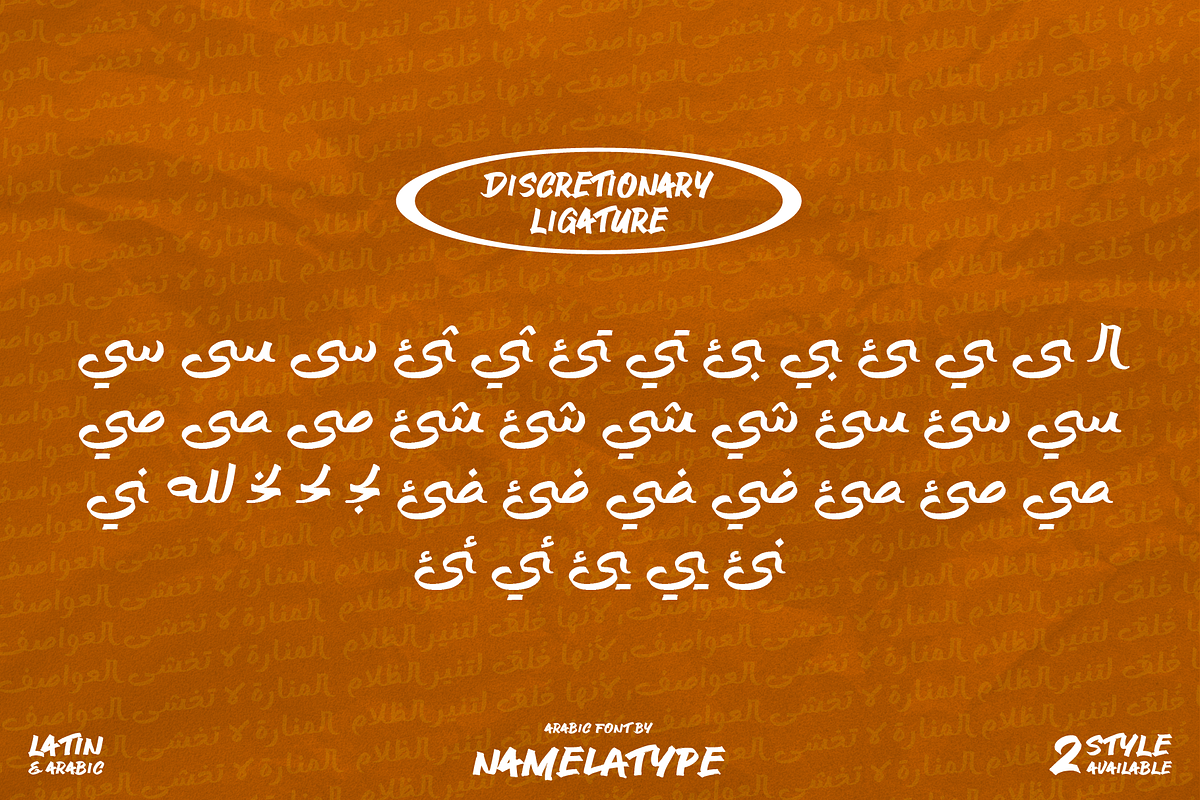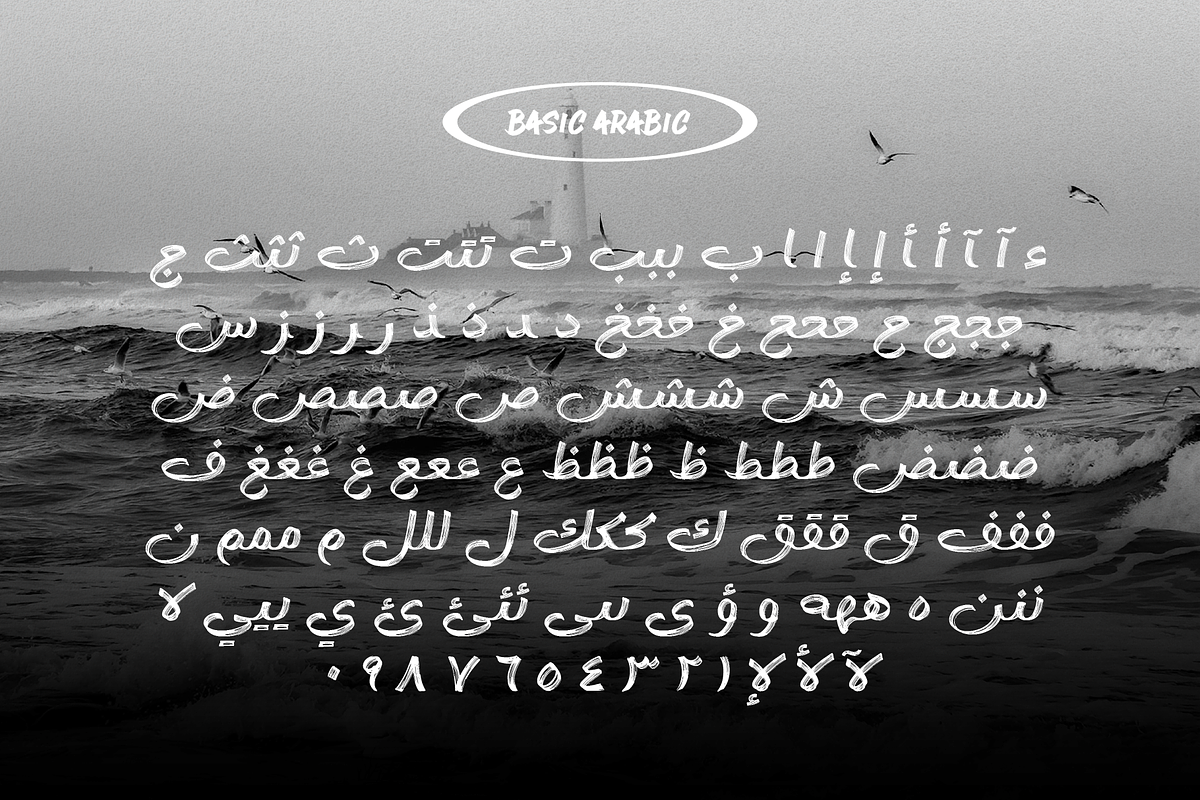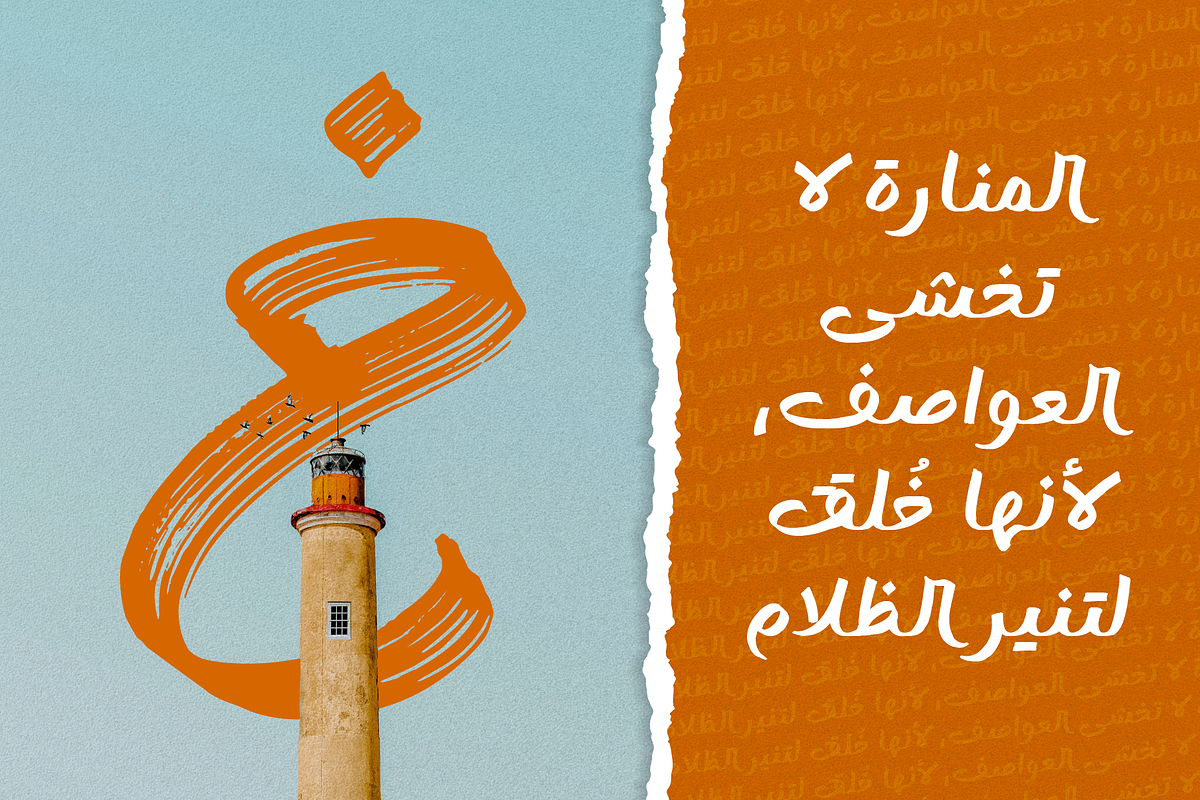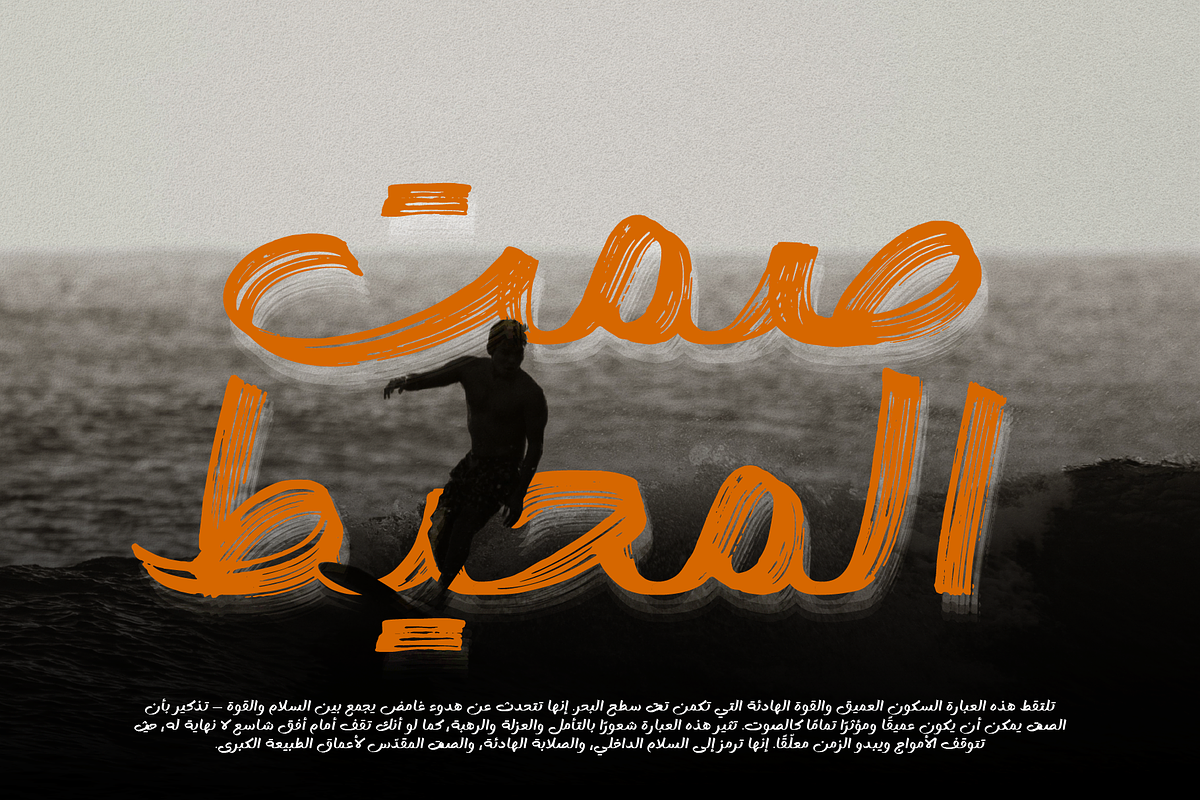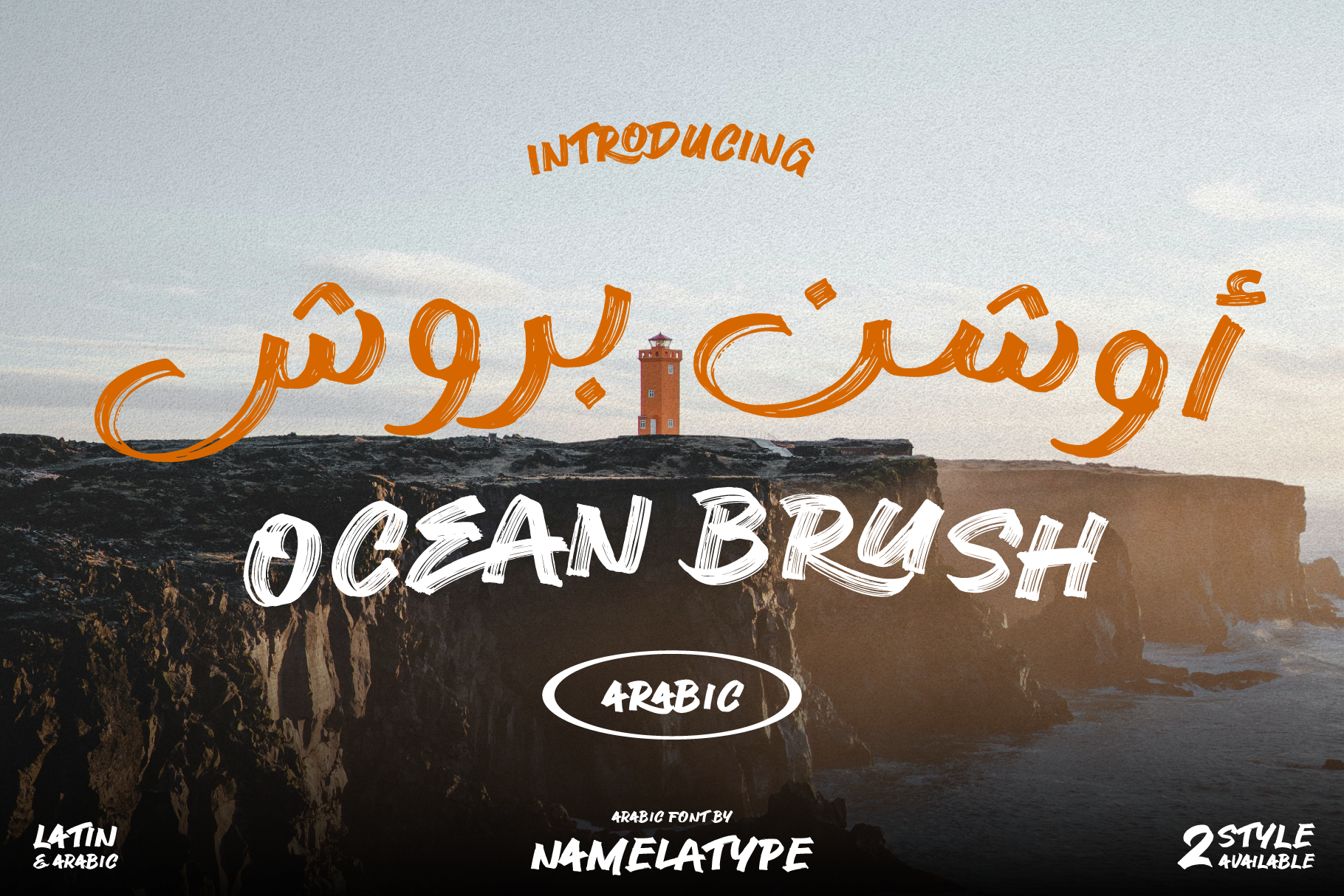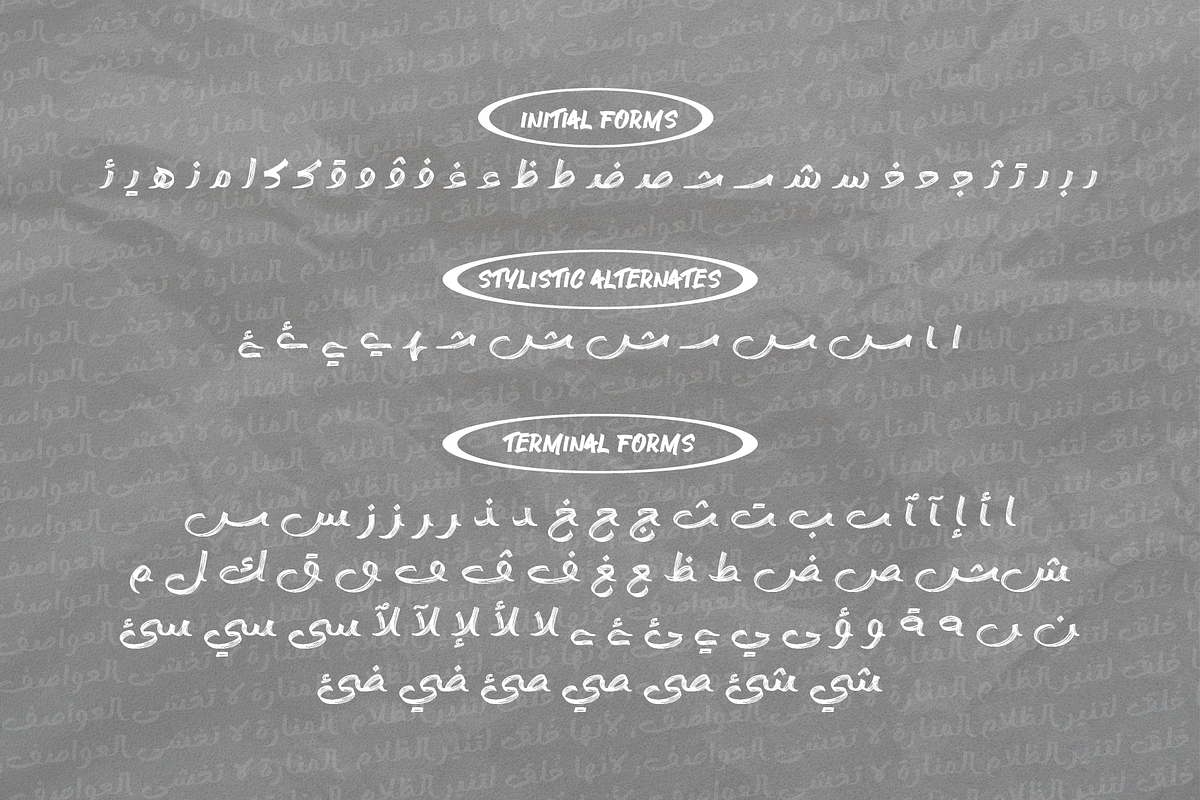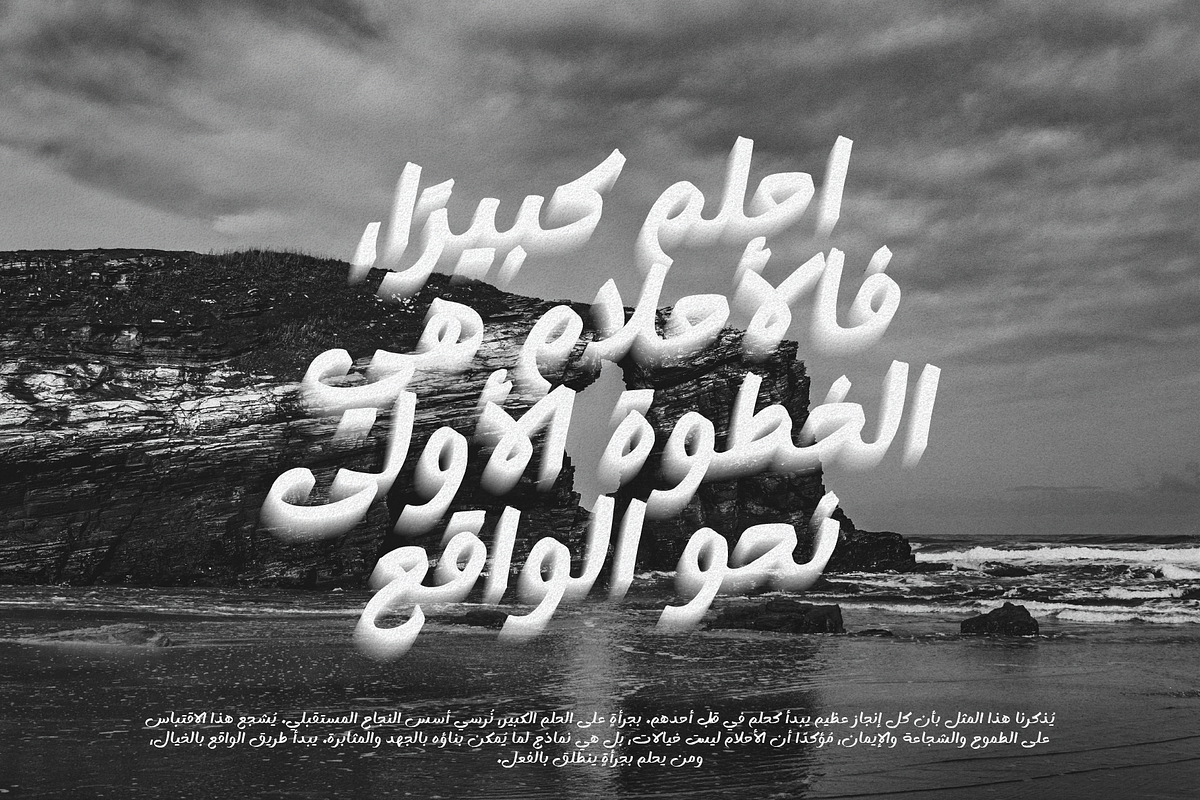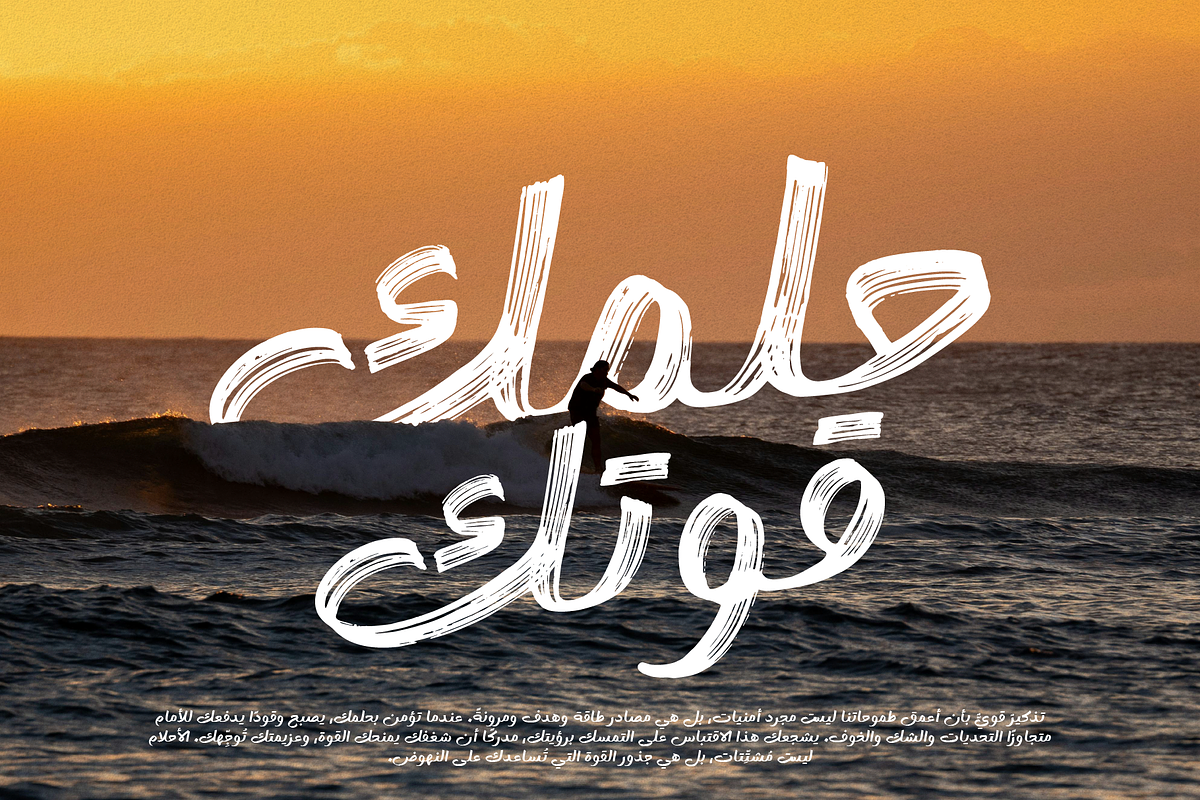
Ocean Brush Arabic Handwritten Font
The Ocean Brush Arabic is an advanced iteration of Ocean Brush. This version features an expansion of the Arabic script. The Update improves its versatility and suitability for diverse linguistic and typographic requirements. The expansion introduces more characters and diacritics, enabling a better representation of regional dialects and languages that utilize the Arabic script.
The Ocean Brush Arabic is a handwritten brush typeface inspired by the dynamic and fluid movement of waves. Each stroke in this typeface embodies the power of nature, adding a natural and expressive artistic touch to your works. This font stands out for its ability to represent both the peacefulness and force of the ocean.
Ocean handwritten brush font is ideal for creative projects such as posters, logos, product packaging, and social media material that demand a youthful and vibrant style.